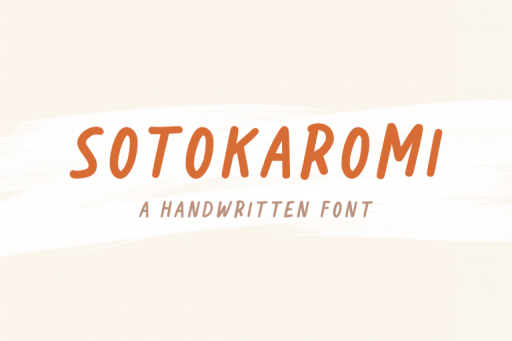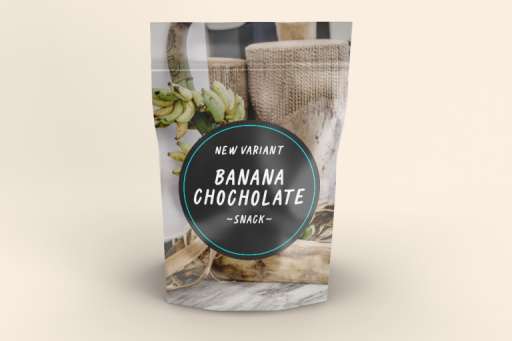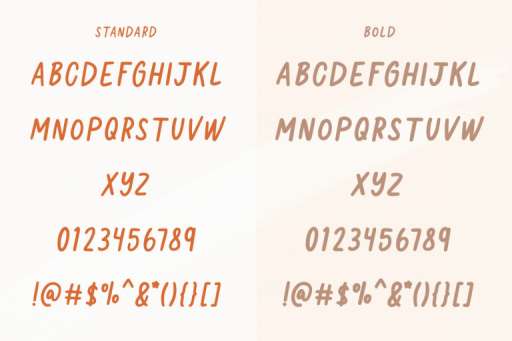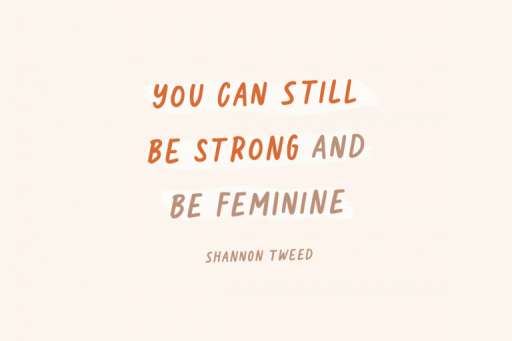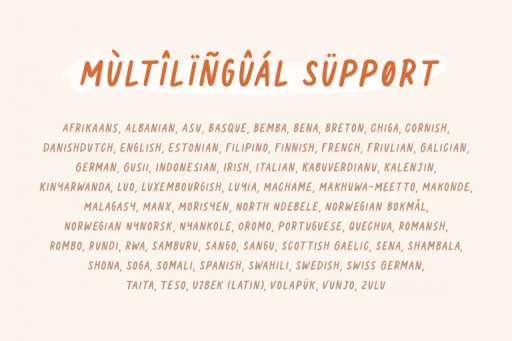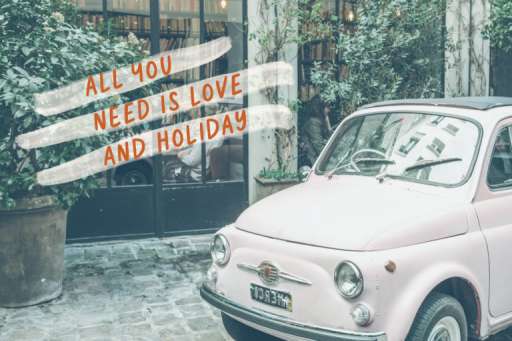
Sotokaromi Font – Readable Handwritten
Sotokaromi a handwritten display font with the standard and bold version style. Very suitable for feminine design, product packaging, logos, title, branding, quotes, book, and much more!
• Multilingual